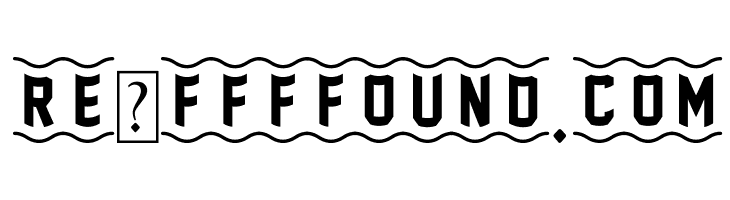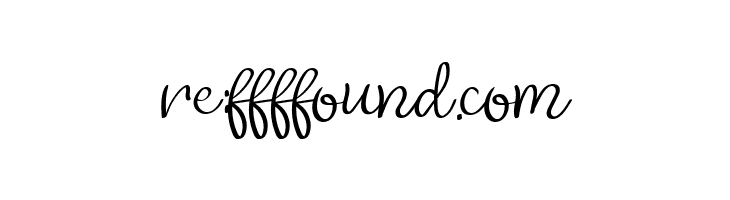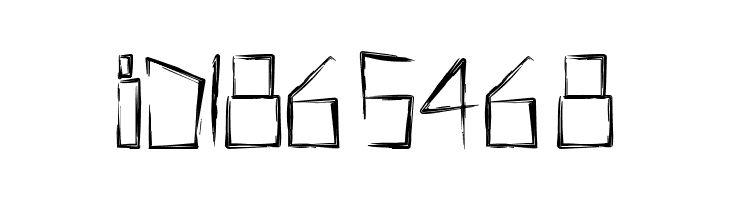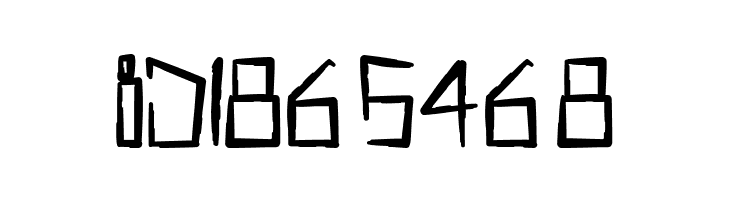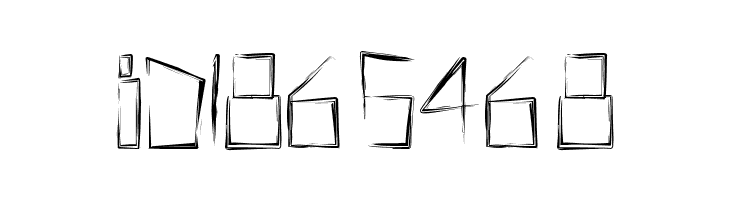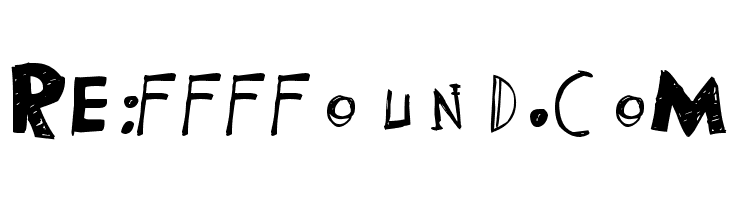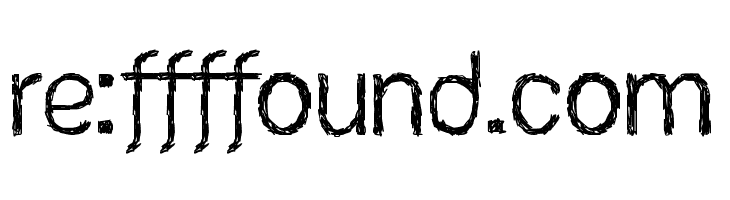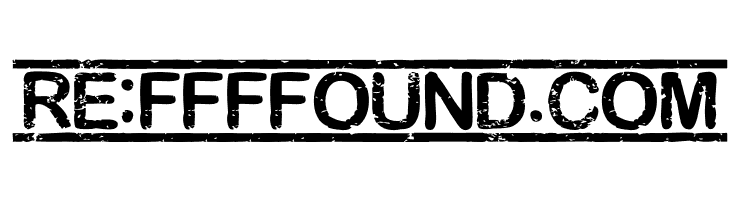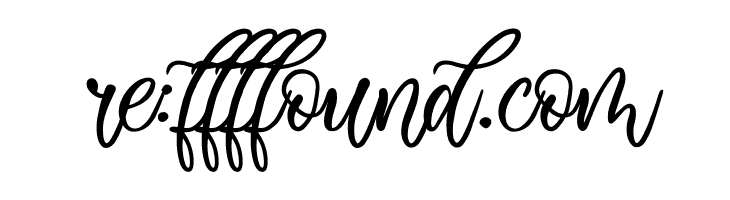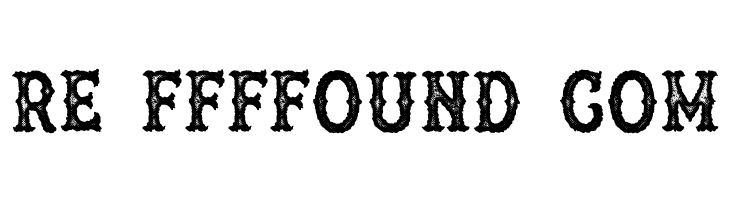
• (Hanging Lights) Regular
A whimsical font with characters inside light bulb designs, perfect for playful projects.
• (karisma)
An elegant, cursive font with flowing, artistic strokes and intricate flourishes.
• (KING ARTHUR)
A decorative, medieval-style font with ornate, scroll-like characters.
• (True_Love_Hearts)
A decorative font with characters enclosed in heart shapes, ideal for romantic themes.
• [ Wild Flower ]
A playful, handwritten script font with elegant loops and smooth flow.
• [[[O]]] Basic
A modern, minimalist font with thin, elongated strokes and geometric influences.
• [[[o]]] brushhh
A hand-drawn, brush-style font with tall, slender characters and an artistic flair.
• [afGiHmtV]*
• [ank]*
A hand-drawn, sketch-style font with playful, irregular strokes.
• [AULA 402]
• [BichOGothic]
An ornate Gothic font with elaborate flourishes and bold, dramatic strokes.
• [Catalina]
A playful handwritten font with a whimsical and artistic style.
• [Crayonized]
A playful, handwritten font with a crayon-like appearance.
• [First Grader]
A playful, hand-drawn font with a whimsical and informal style.
• [First Grader]
A playful, handwritten-style font with irregular strokes and spacing.
• [FoOtY-ScArF]
A bold, angular font with a modern, edgy style and a playful wave-like background.